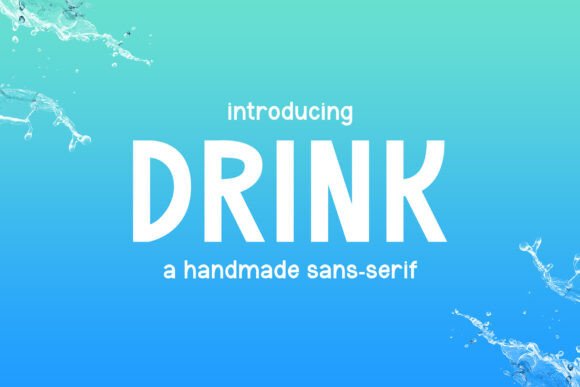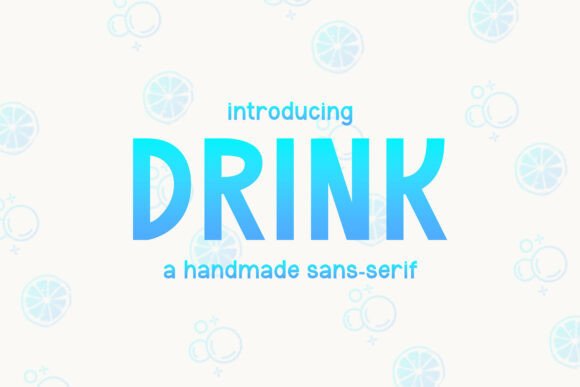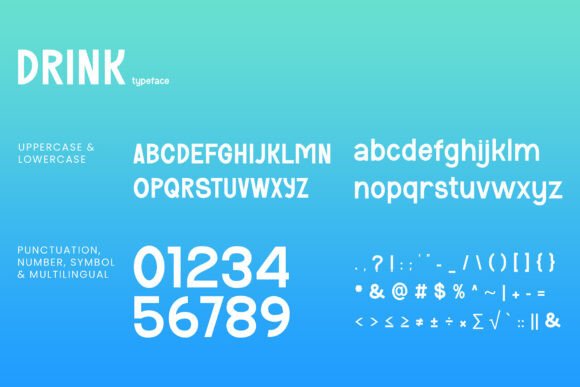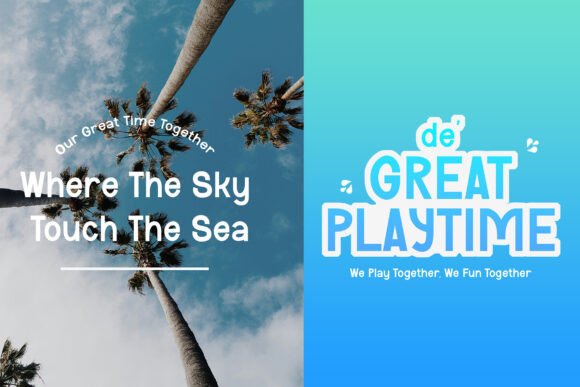
Drink Font
About the Drink Font
Discover the charm of Drink Font. This font is a perfect blend of modern aesthetics and classic appeal. Drink is a sweet and friendly sans serif font. Its natural and unique style makes it incredibly fitting to a large pool of designs. The only limit is your imagination!
Drink excels in display applications such as headlines, logos, and short-form text on posters or packaging. Its friendly nature makes it ideal for brands targeting a youthful or approachable audience. Avoid using Drink for body copy or lengthy paragraphs; its unique letterforms can become visually tiring over extended reading.
The font’s playful yet approachable personality pairs well with various contrasting typefaces. Consider pairing it with a classic serif like Garamond for a sophisticated contrast or a geometric sans-serif like Futura for a modern, clean aesthetic. A script font like Allura could add a touch of elegance to designs featuring Drink.
Drink’s overall character is best described as friendly and approachable, with a touch of quirkiness. This makes it unsuitable for projects demanding seriousness or formality. Projects needing a strong, confident voice may also find it too lighthearted.